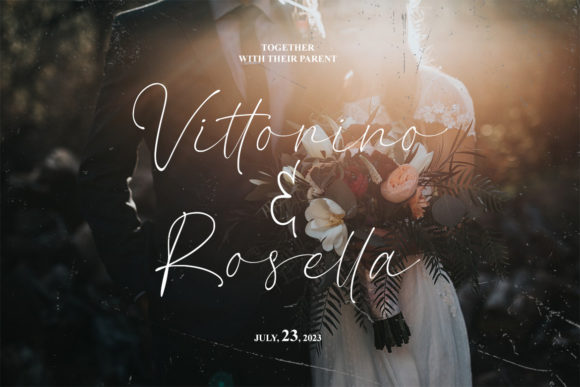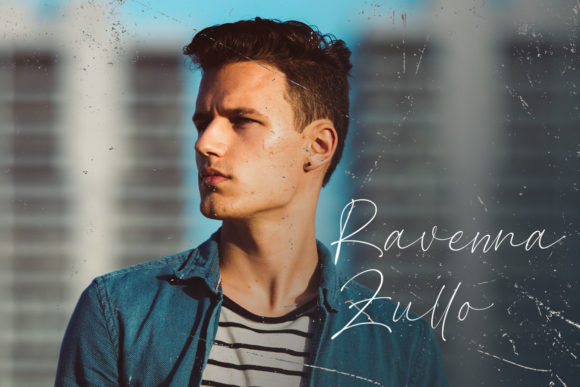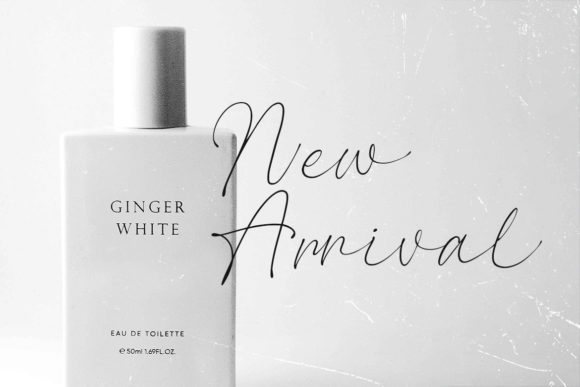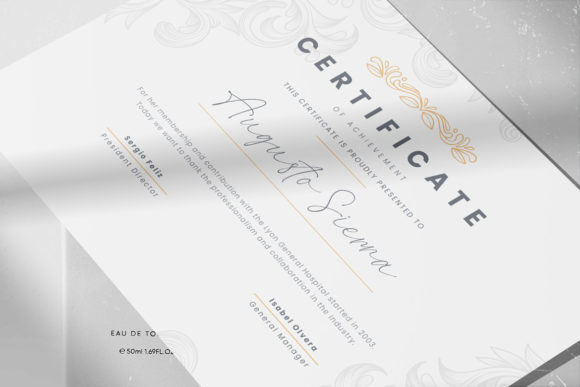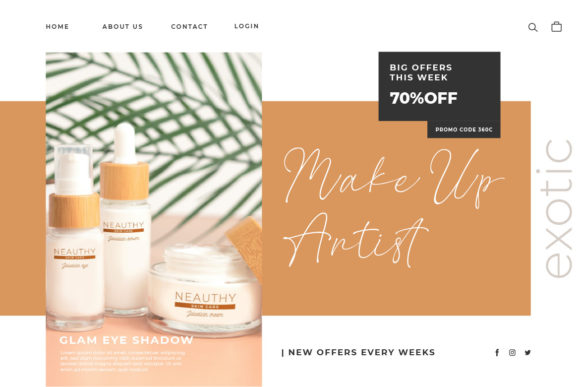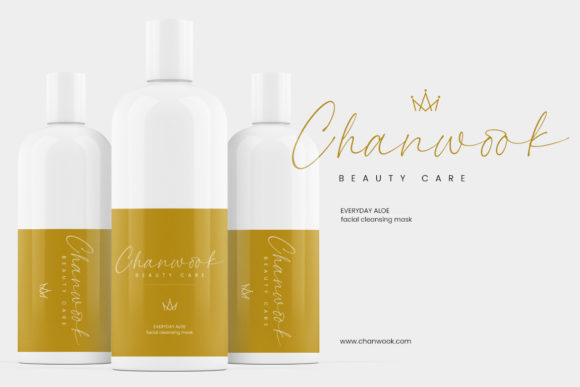
Ferralist Font: Elevate Your Designs with Elegance and Sophistication
In the world of typography, fonts play a crucial role in conveying the tone and personality of a design. For designers and crafters seeking to add a touch of elegance and sophistication to their projects, the Ferralist Font is an excellent choice. This stunning script font boasts a fashionable vibe, characterized by its unique curves and elegant ink flow, making it perfect for a wide range of creative applications.
The Unique Charm of Ferralist Script
Ferralist Script is distinguished by its distinctive curves and fluid ink flow, which give it a sense of movement and dynamism. This font is designed to make a statement, adding a touch of luxury and refinement to any design. Whether you’re working on branding projects, logos, wedding designs, social media posts, advertising, product packaging, or product design, Ferralist Script is sure to impress.
Key Features of Ferralist Font
- Elegant Ink Flow: The font’s smooth, flowing lines create a sense of continuity and harmony, making it perfect for designs that require a touch of sophistication.
- Unique Curves: Ferralist Script’s distinctive curves add a touch of personality to your designs, setting them apart from more traditional fonts.
- Fashionable Vibe: This font is designed to be on-trend, making it ideal for designers and crafters who want to create modern, stylish designs.
- Versatile: Ferralist Script can be used for a wide range of applications, from branding and advertising to wedding designs and social media posts.
Ferralist Font is an excellent choice for designers and crafters working on various creative projects, including:
- Branding Projects: Establish your brand’s identity with a unique and memorable font that reflects your values and personality.
- Logos: Create a lasting impression with a logo that incorporates Ferralist Script, perfect for businesses, products, or services.
- Wedding Designs: Add a touch of romance and elegance to your wedding designs, including invitations, programs, and decorations.
- Social Media Posts: Elevate your social media presence with stylish and engaging posts that showcase your brand’s personality.
- Advertising: Grab attention and make a statement with Ferralist Script, perfect for print, digital, or online ads.
- Product Packaging: Stand out on store shelves with packaging designs that feature Ferralist Font, adding a touch of sophistication and luxury.
- Product Design: Incorporate Ferralist Script into your product designs, such as labels, tags, or instructional materials, to create a cohesive brand image.
Tips for Using Ferralist Font
To get the most out of Ferralist Font, consider the following tips:
- Pair with Contrasting Fonts: Combine Ferralist Script with simpler fonts to create visual interest and hierarchy in your designs.
- Experiment with Colors: Try Ferralist Font with different colors and textures to add depth and personality to your designs.
- Pay Attention to Spacing: Ensure that your text is easy to read by adjusting the spacing and kerning of Ferralist Script.
Ferralist Font is a versatile and stylish script font that can elevate your designs with its elegant ink flow and unique curves. With its fashionable vibe and wide range of applications, it’s perfect for designers and crafters seeking to add a touch of sophistication and luxury to their projects. Whether you’re working on branding, advertising, or creative projects, Ferralist Script is sure to make a lasting impression.